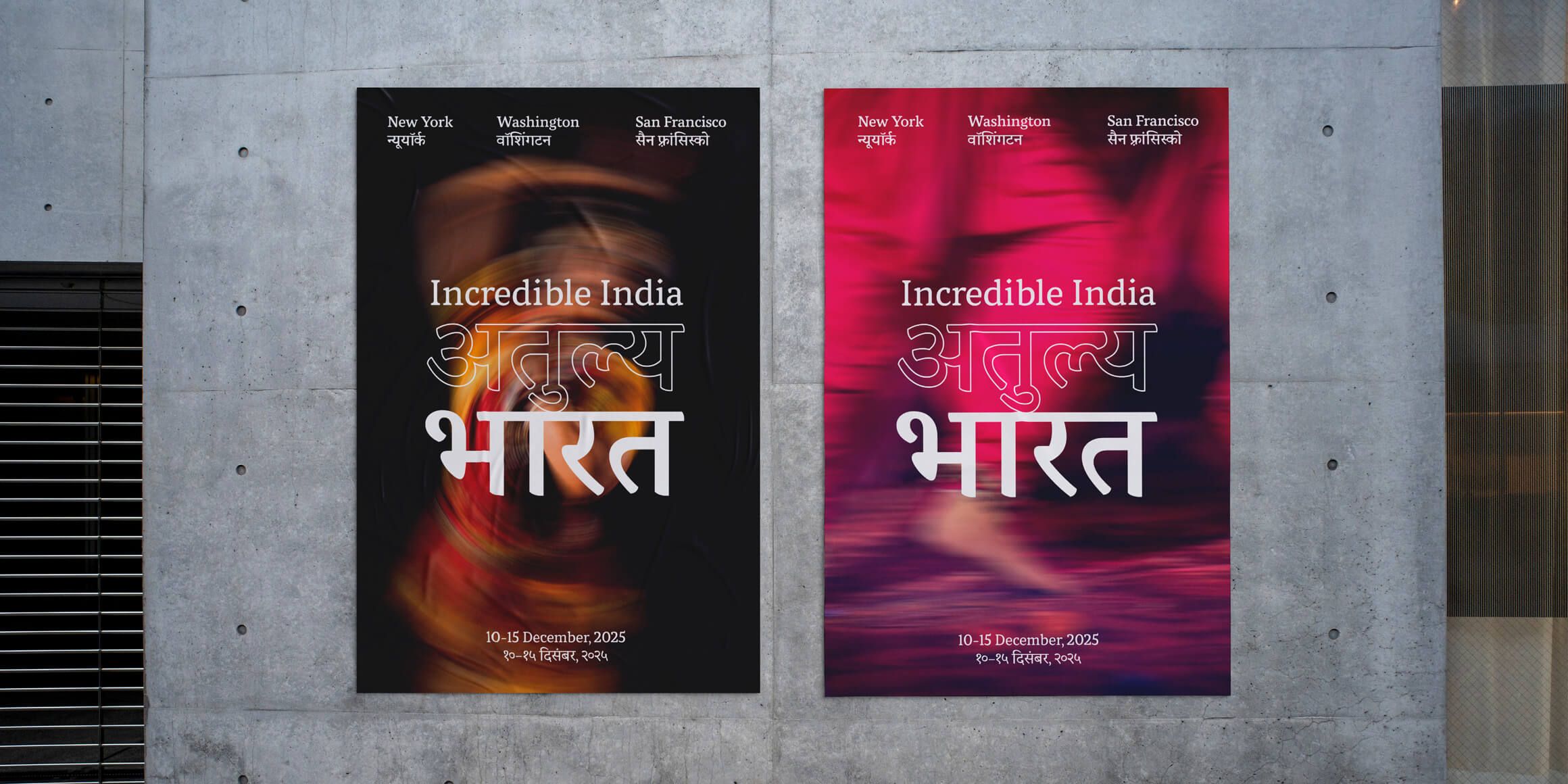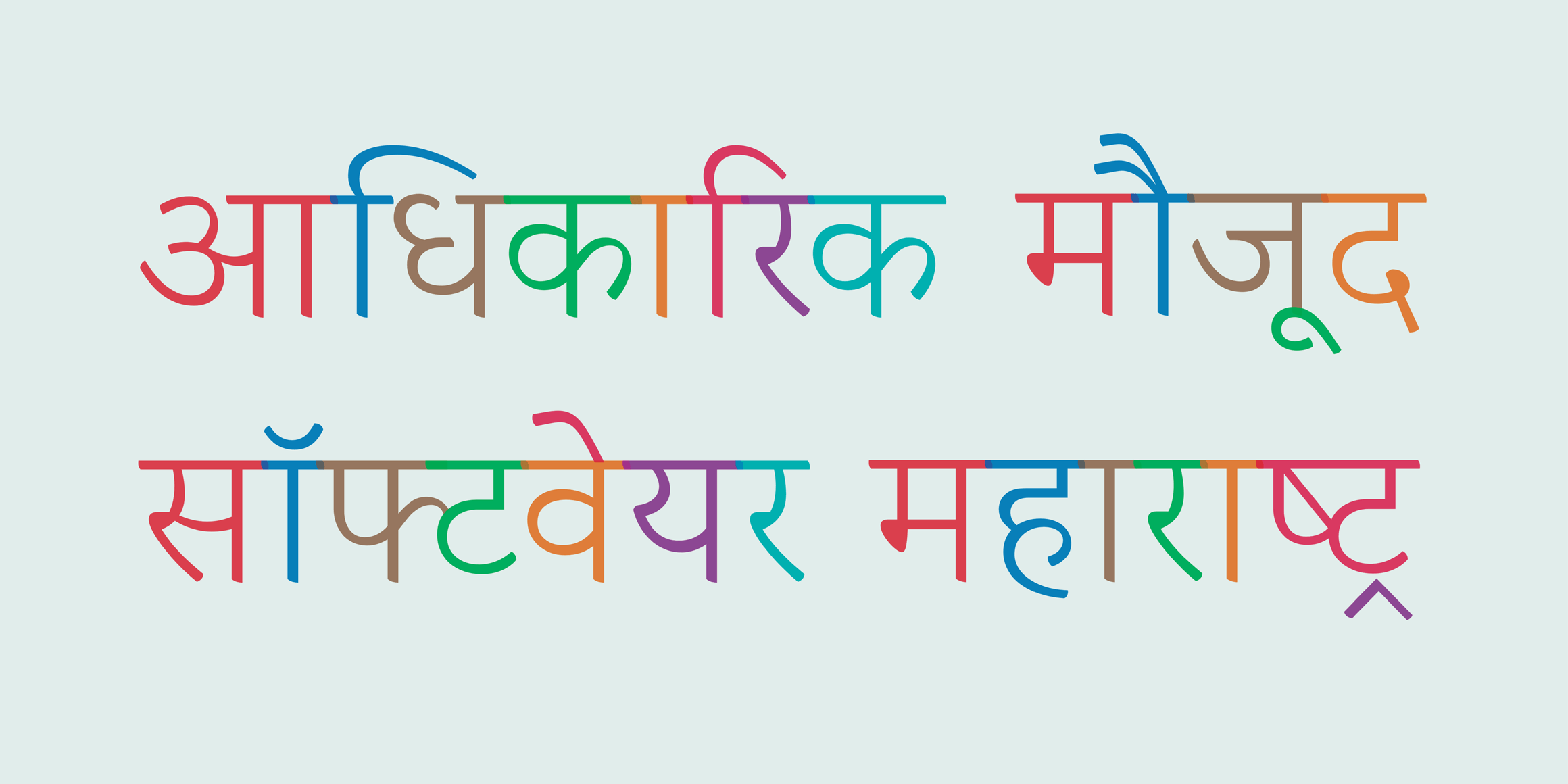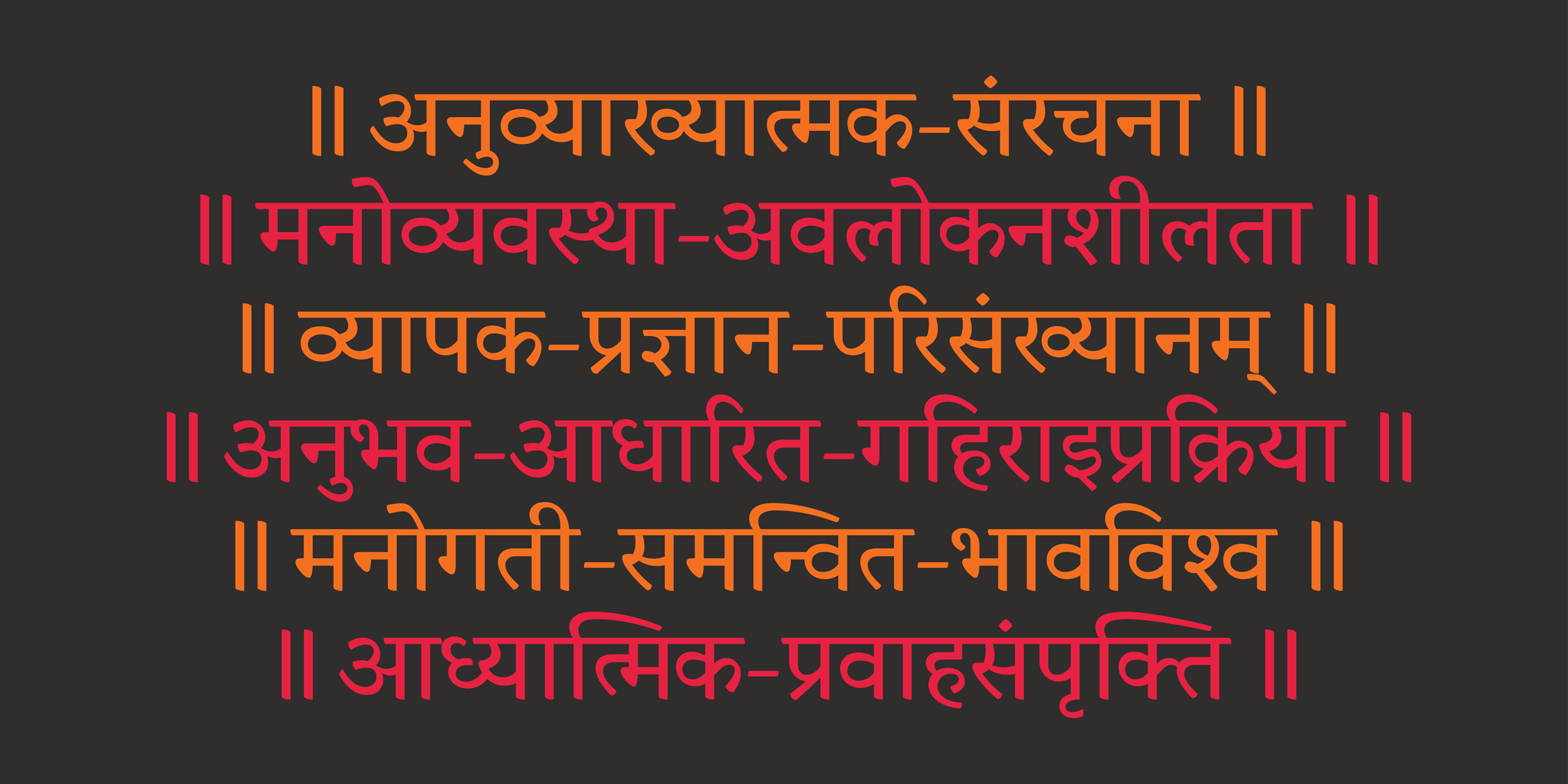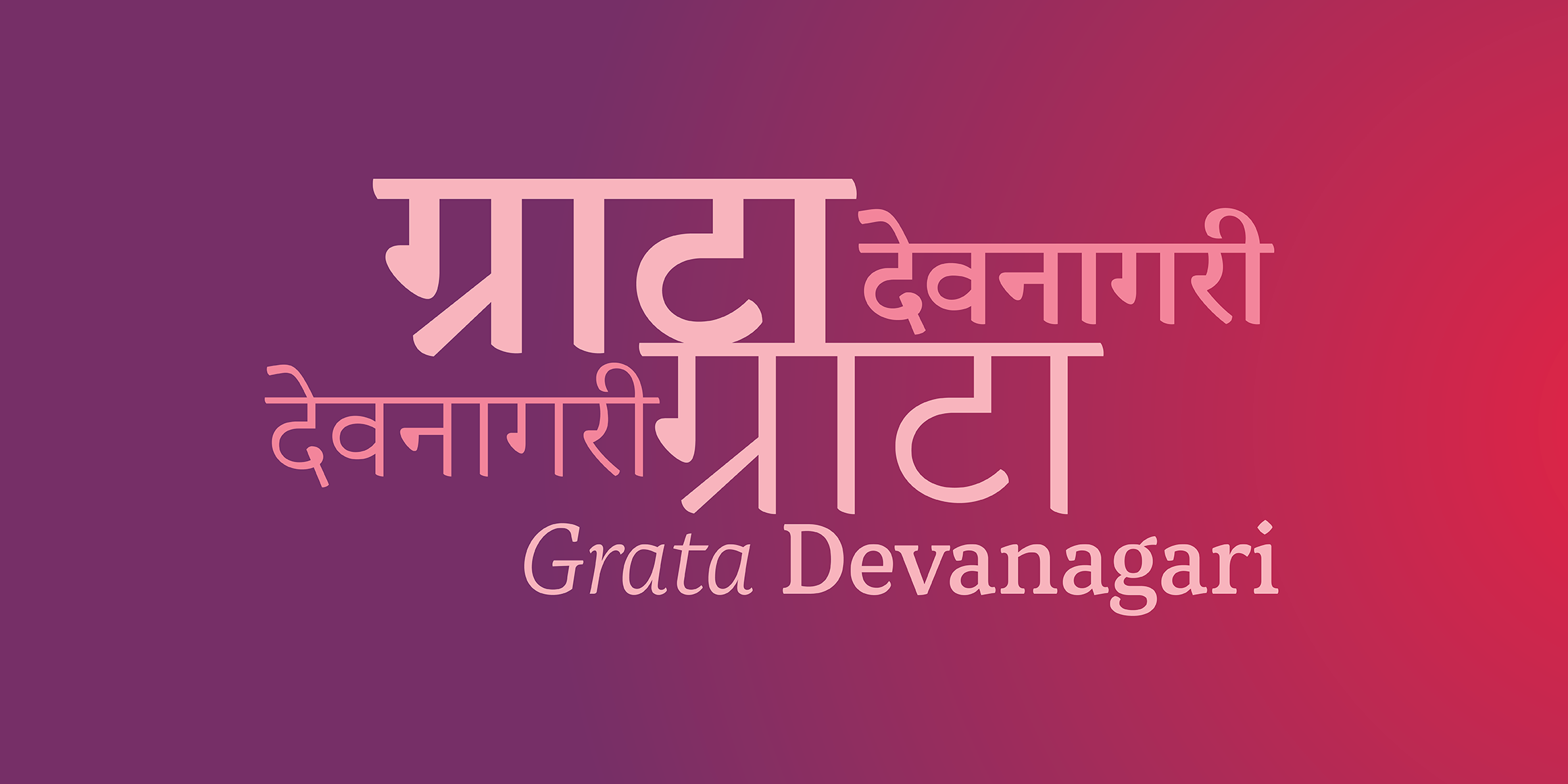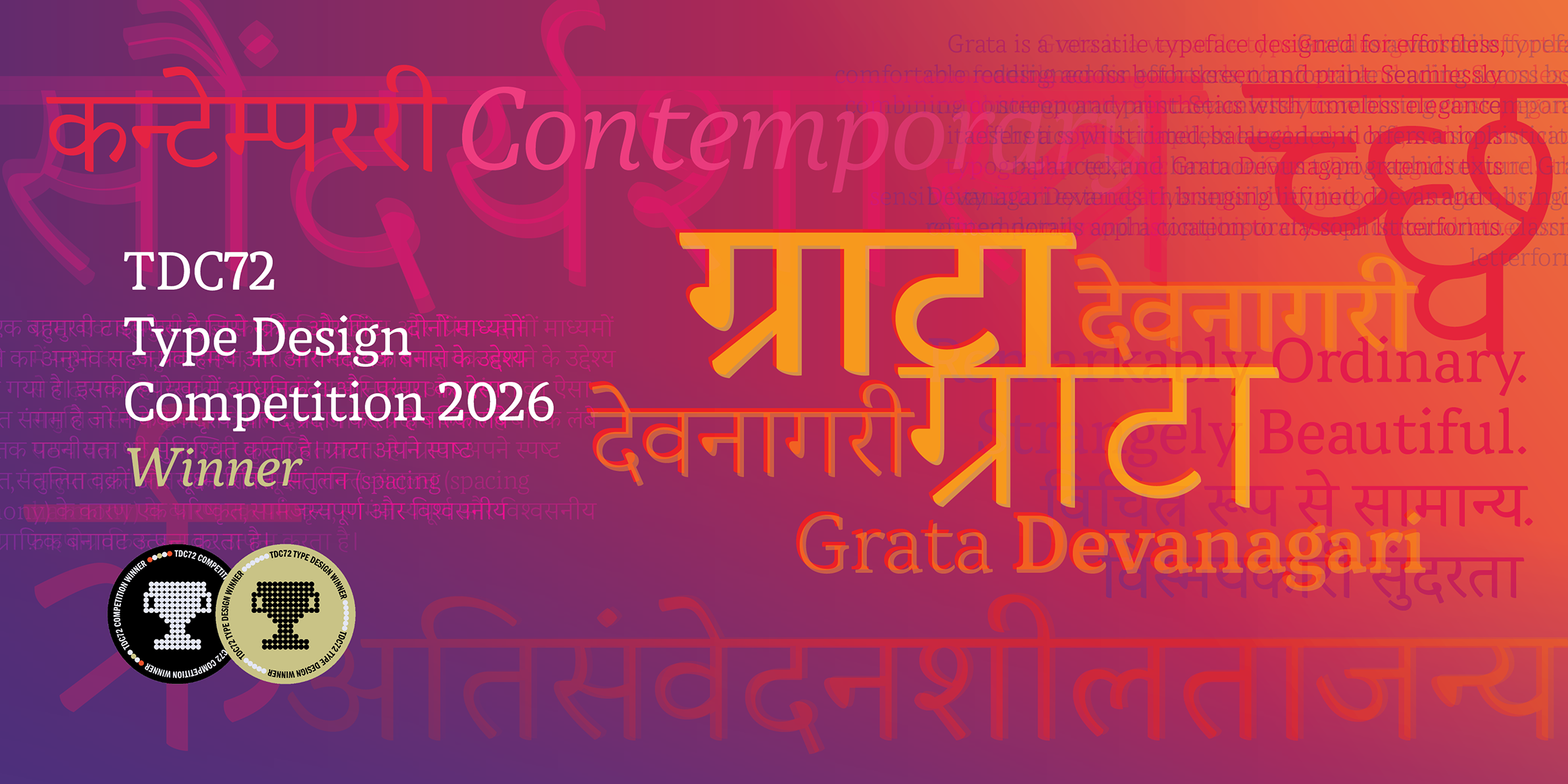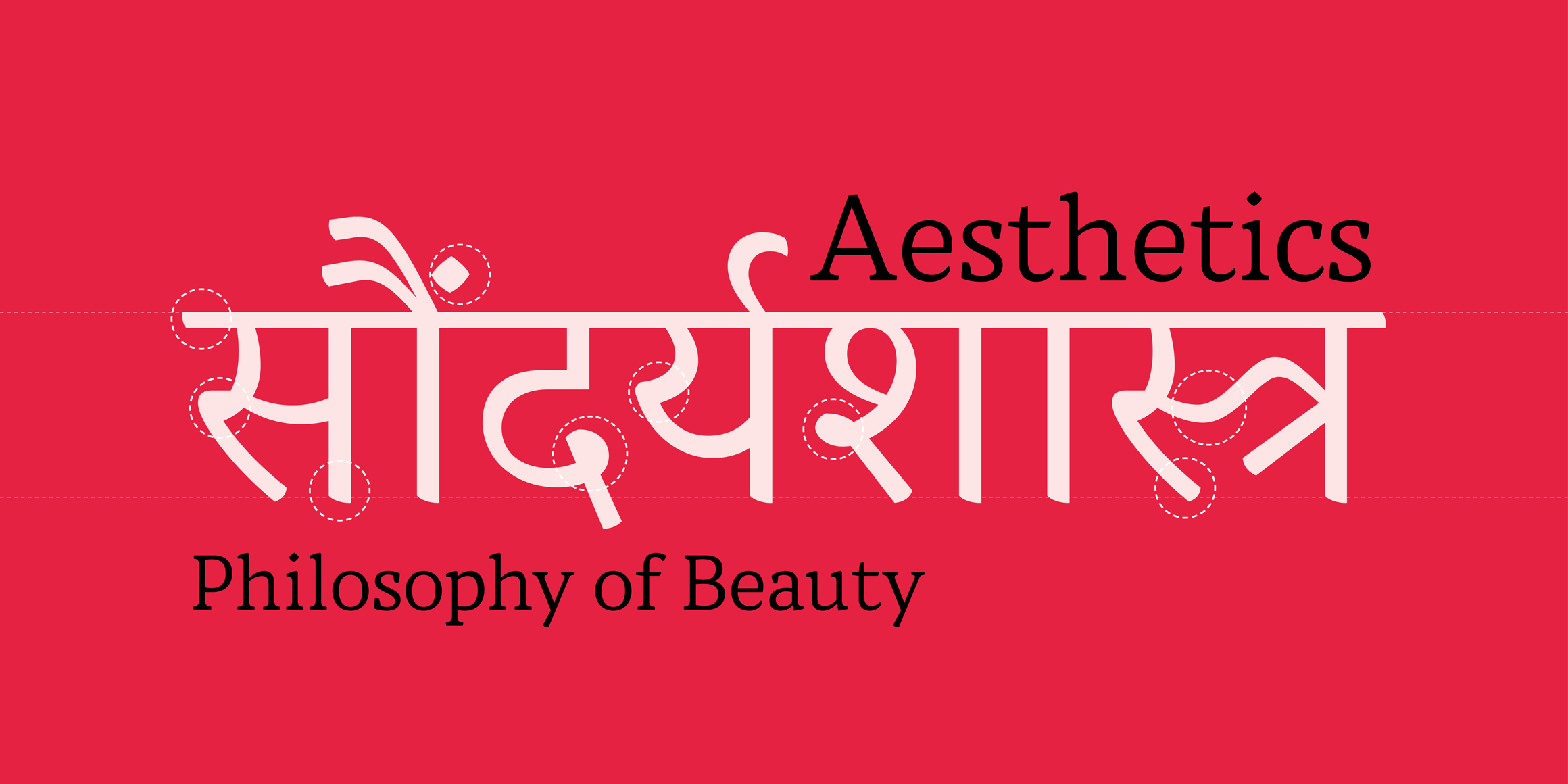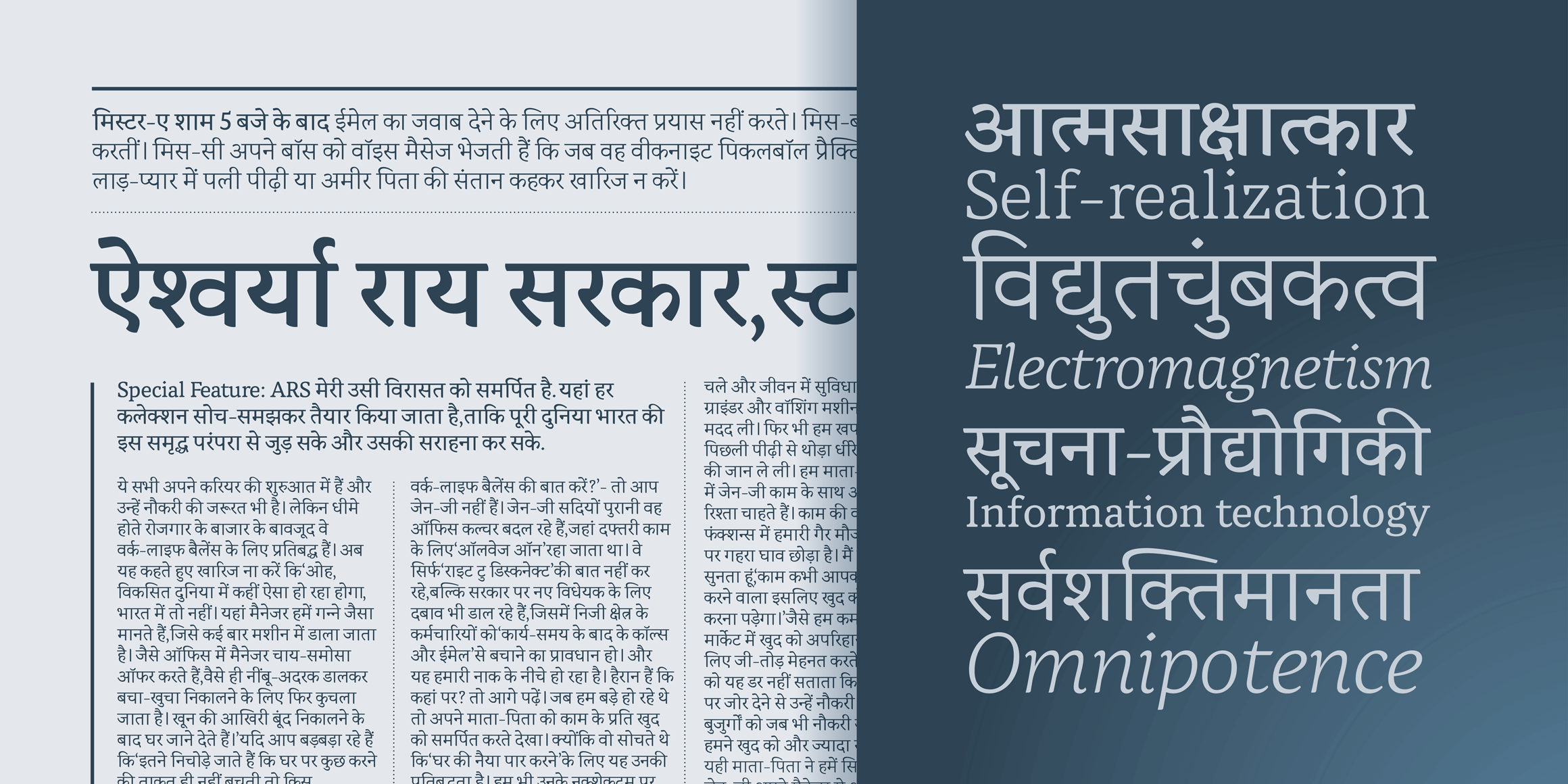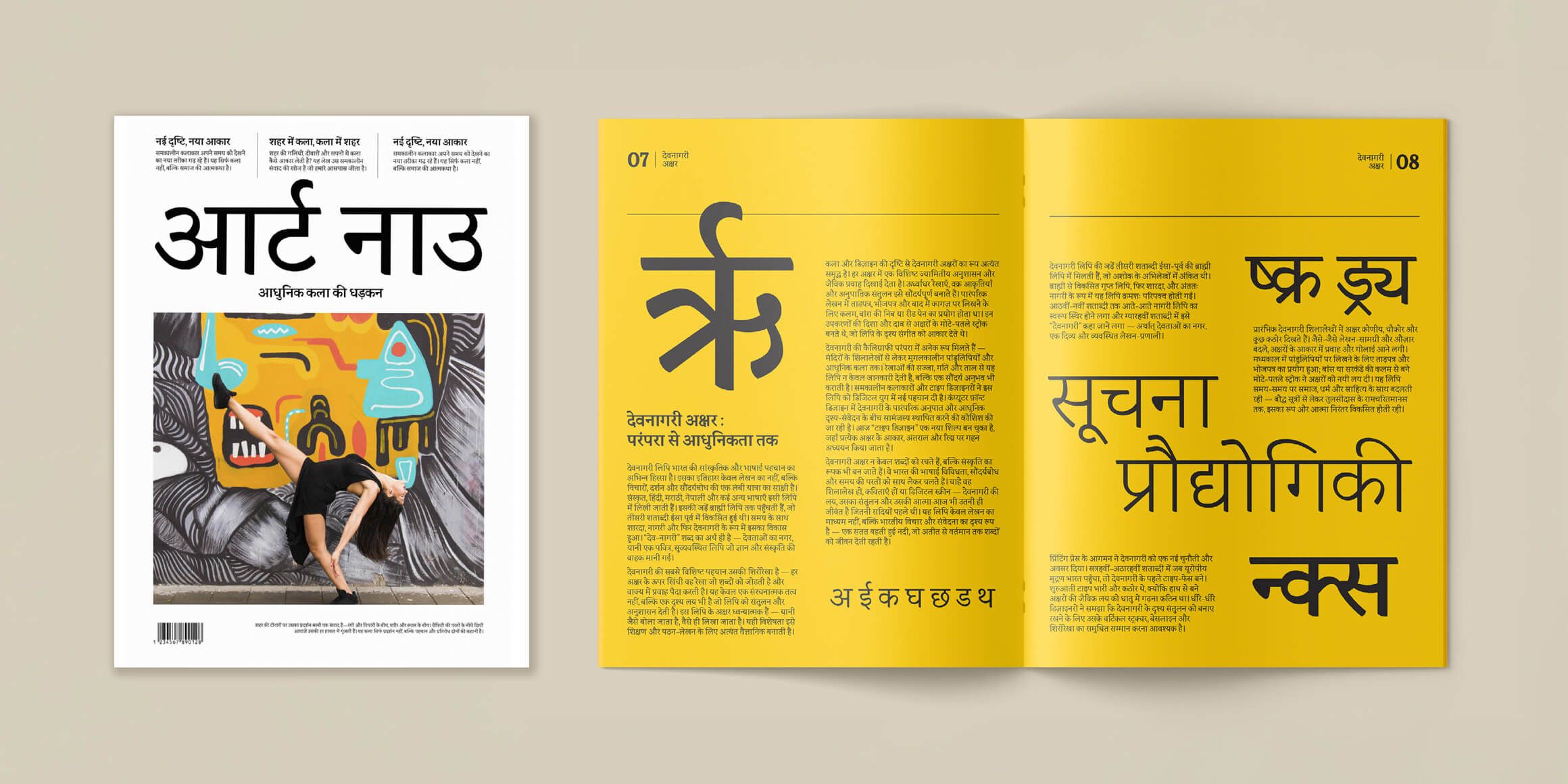
Grata देवनागरी
Grata is a versatile typeface designed for effortless, comfortable reading across both screen and print. Seamlessly combining contemporary aesthetics with timeless elegance, it offers a sophisticated, balanced, and harmonious typographic texture. Grata Devanagari extends this sensibility into Devanagari, bringing refined details and a contemporary sophistication to classical letterforms.